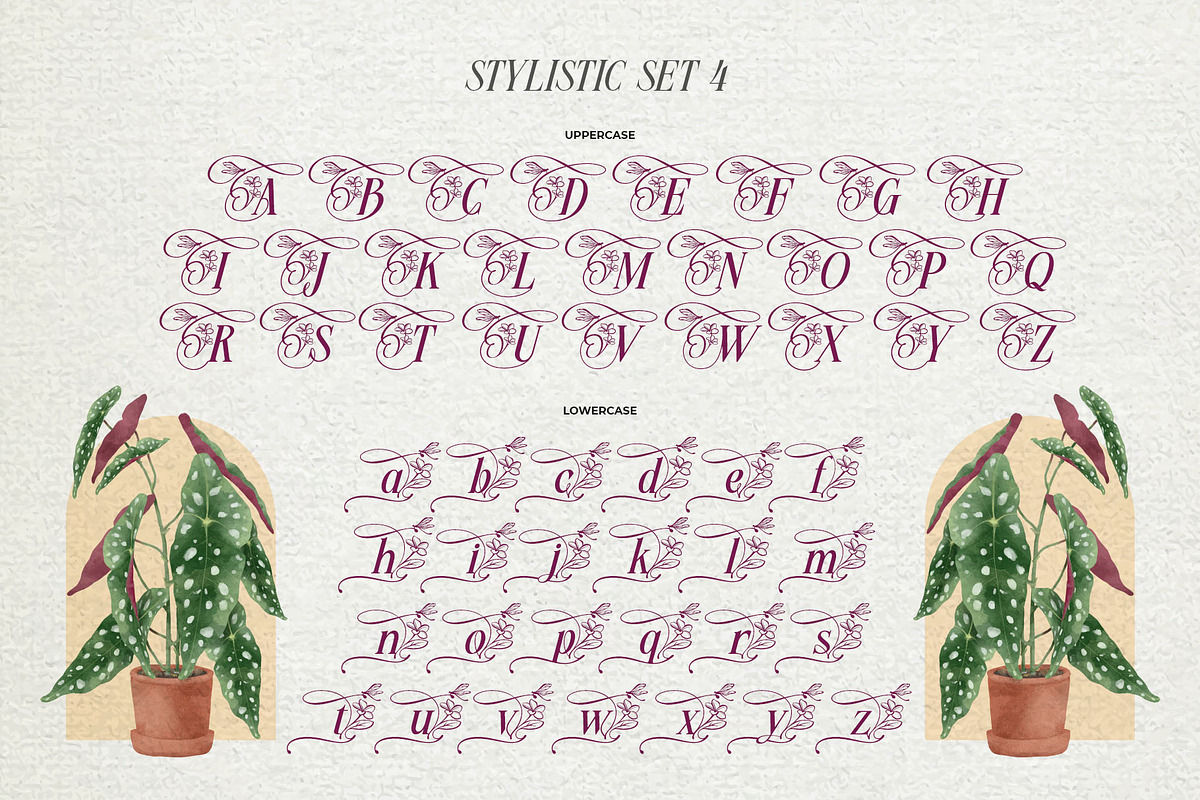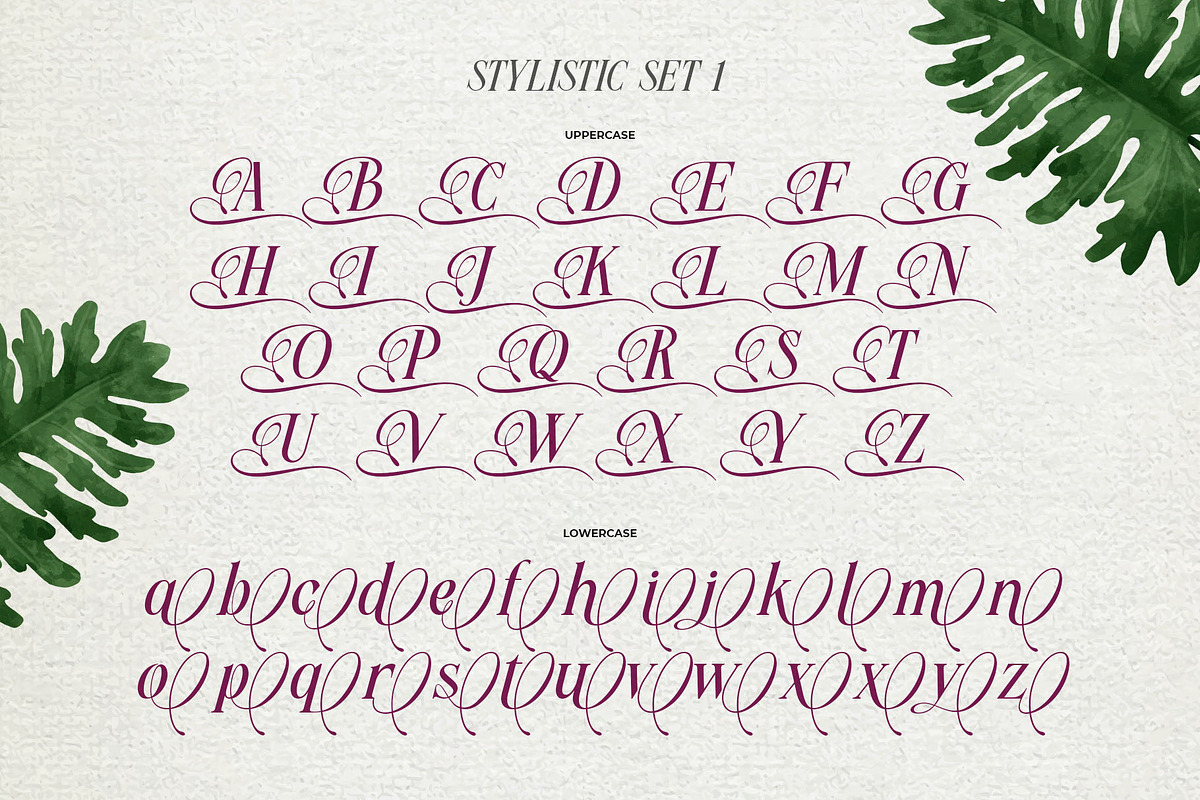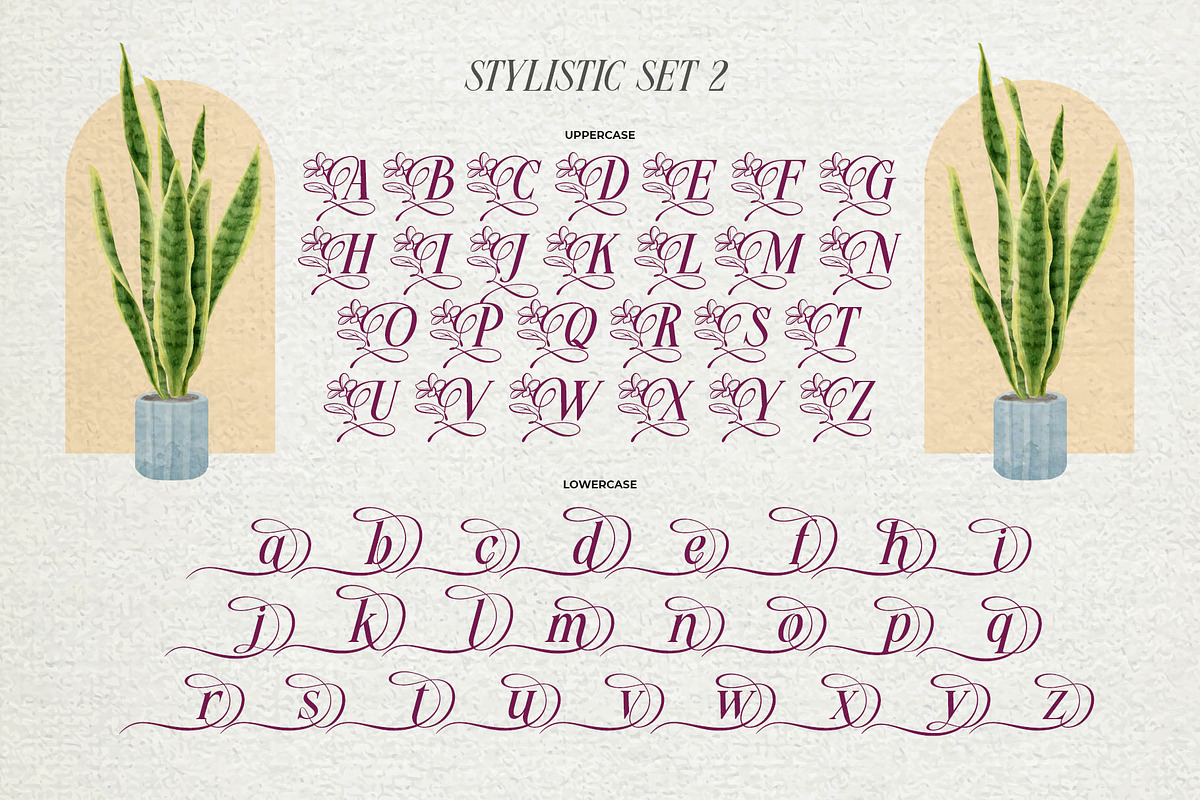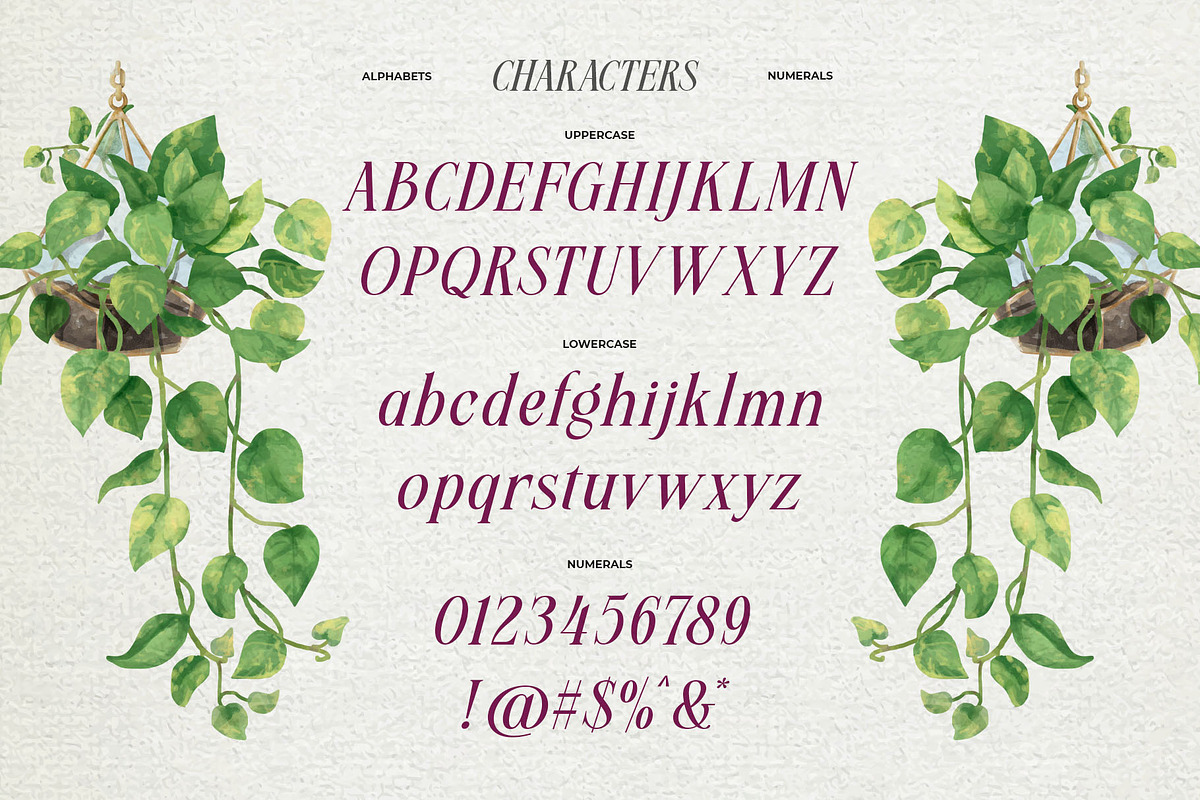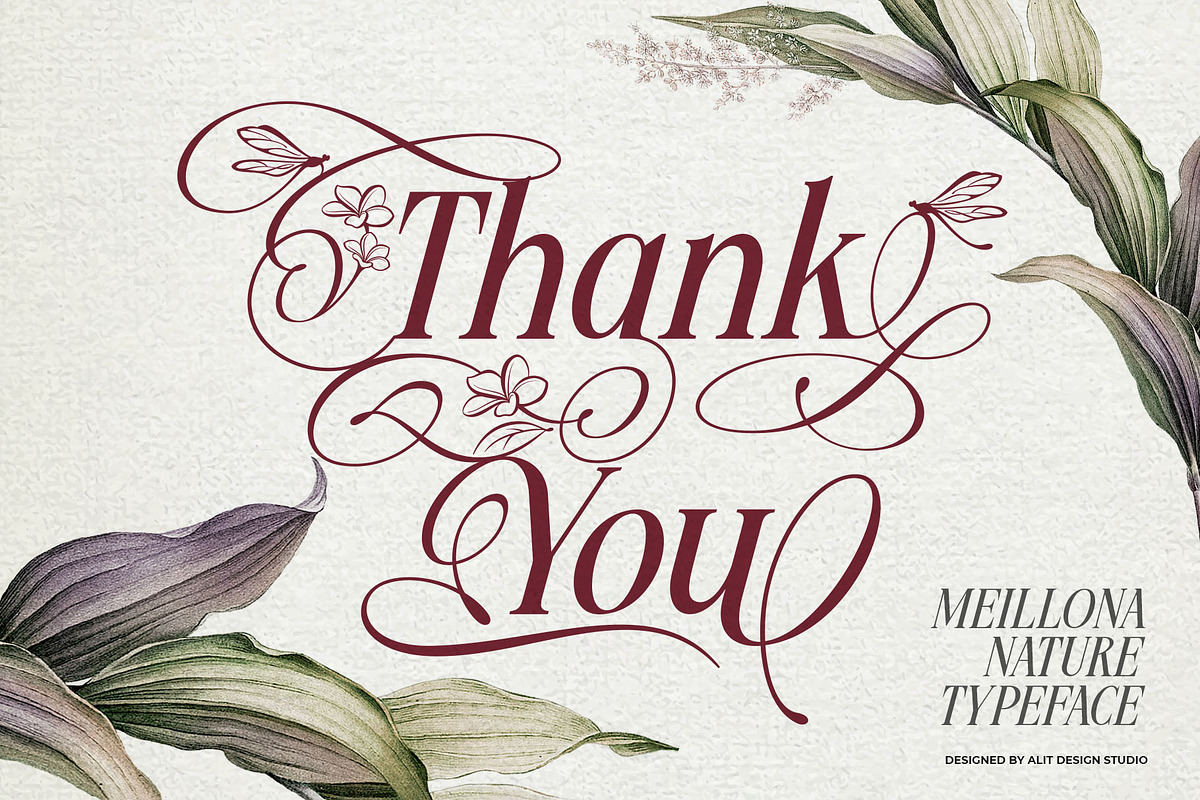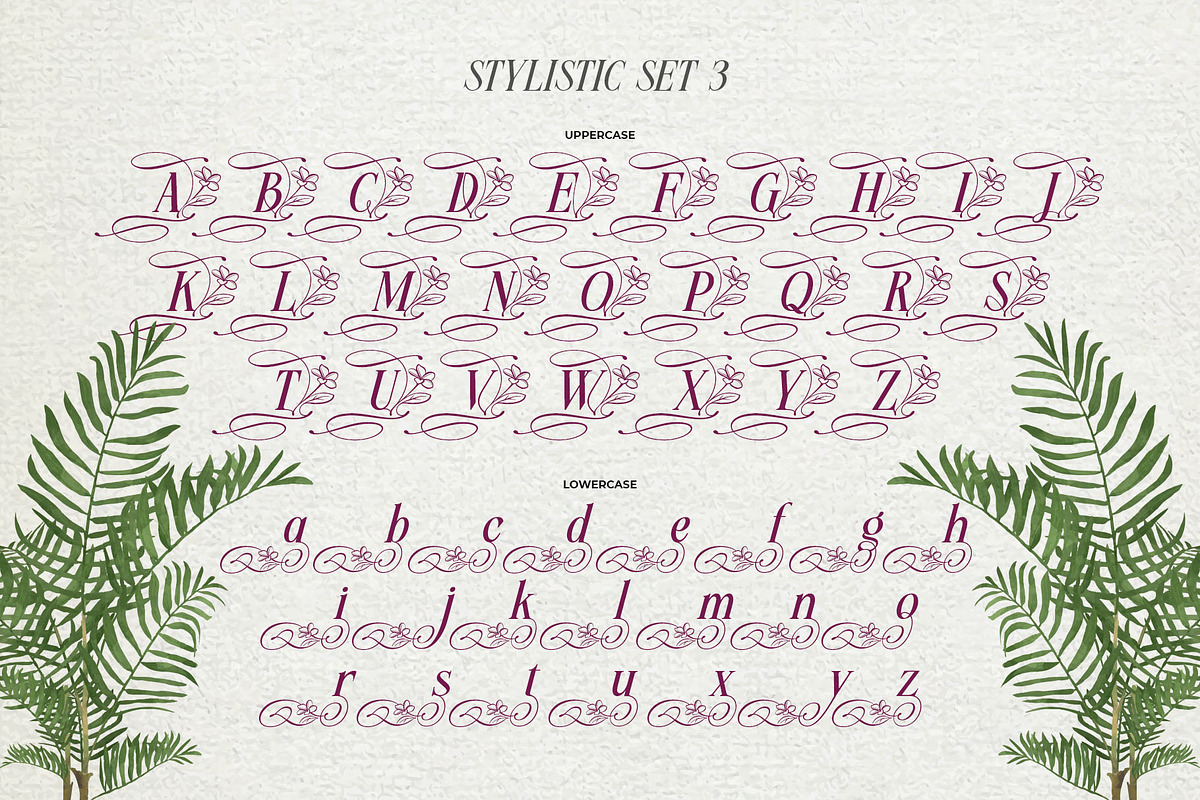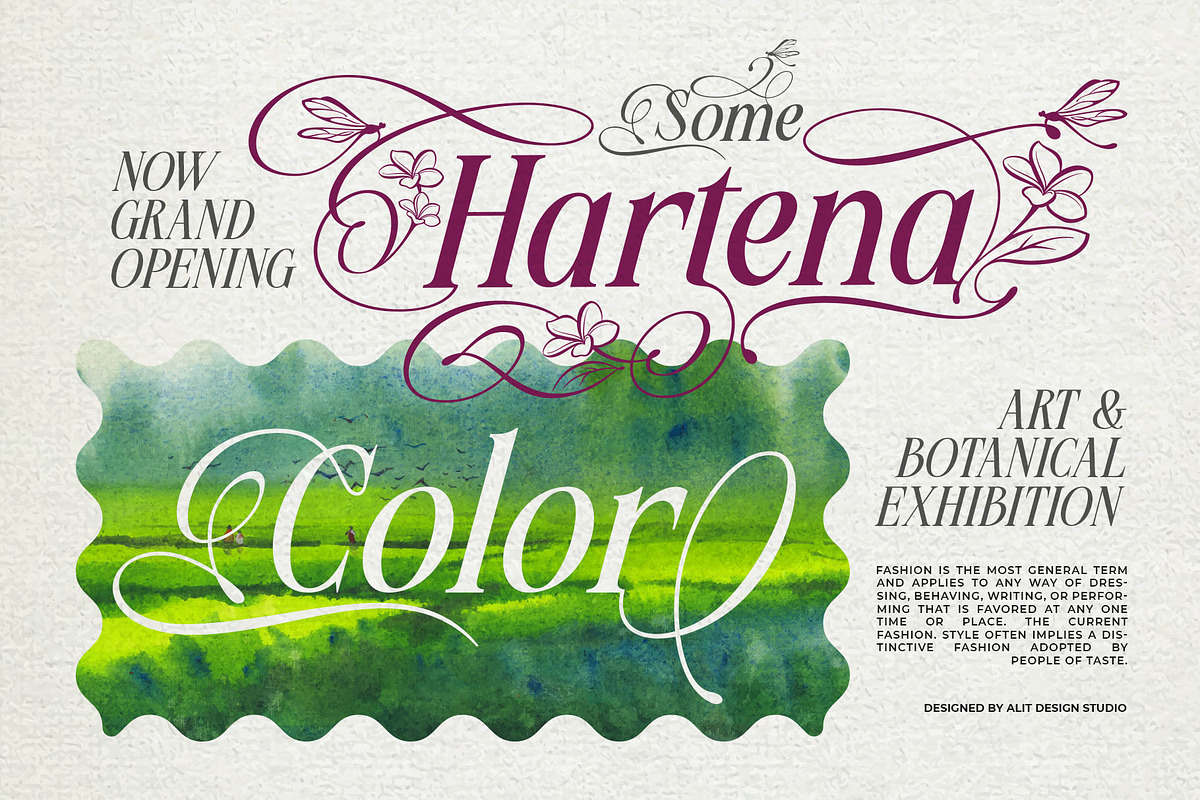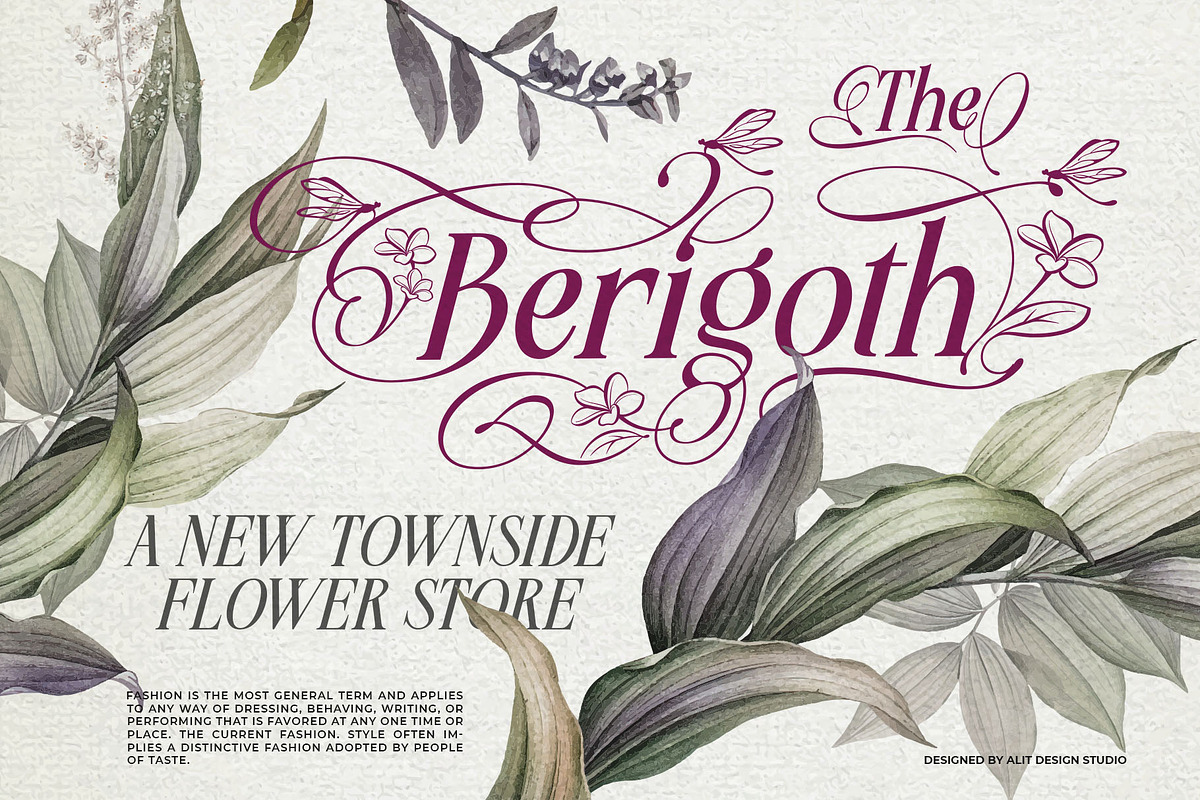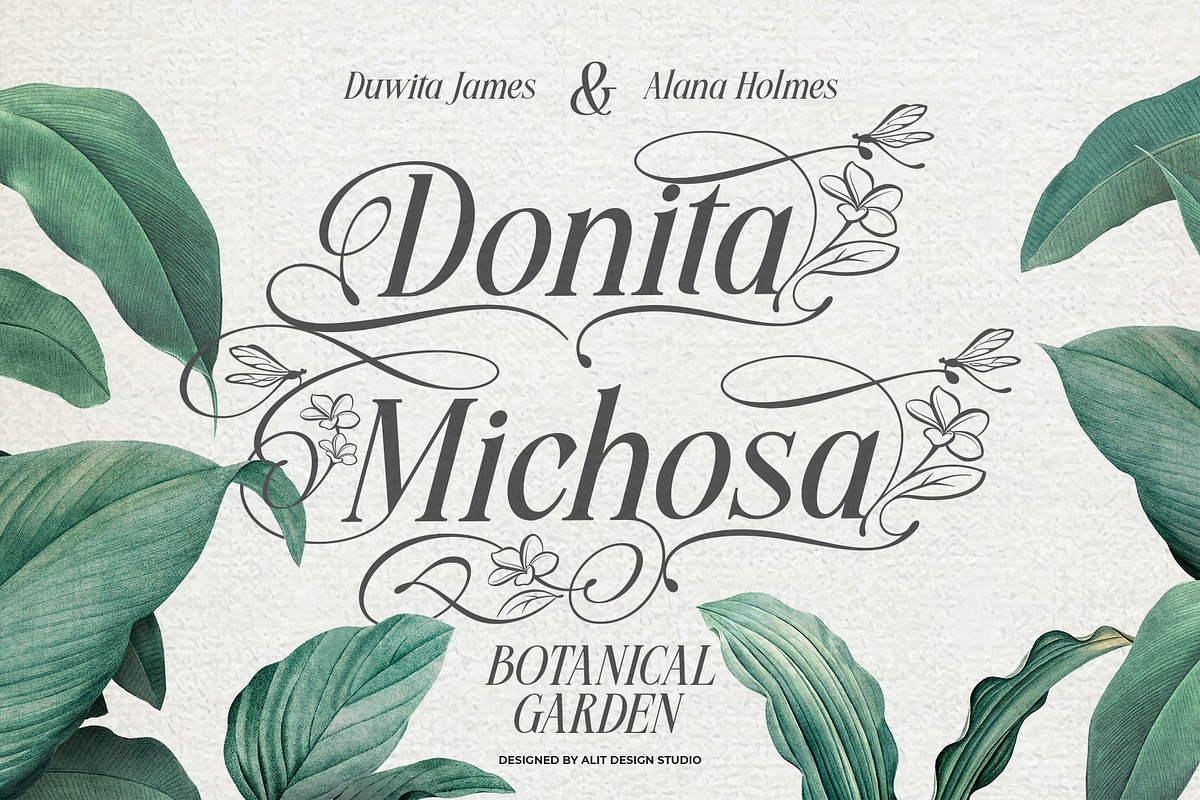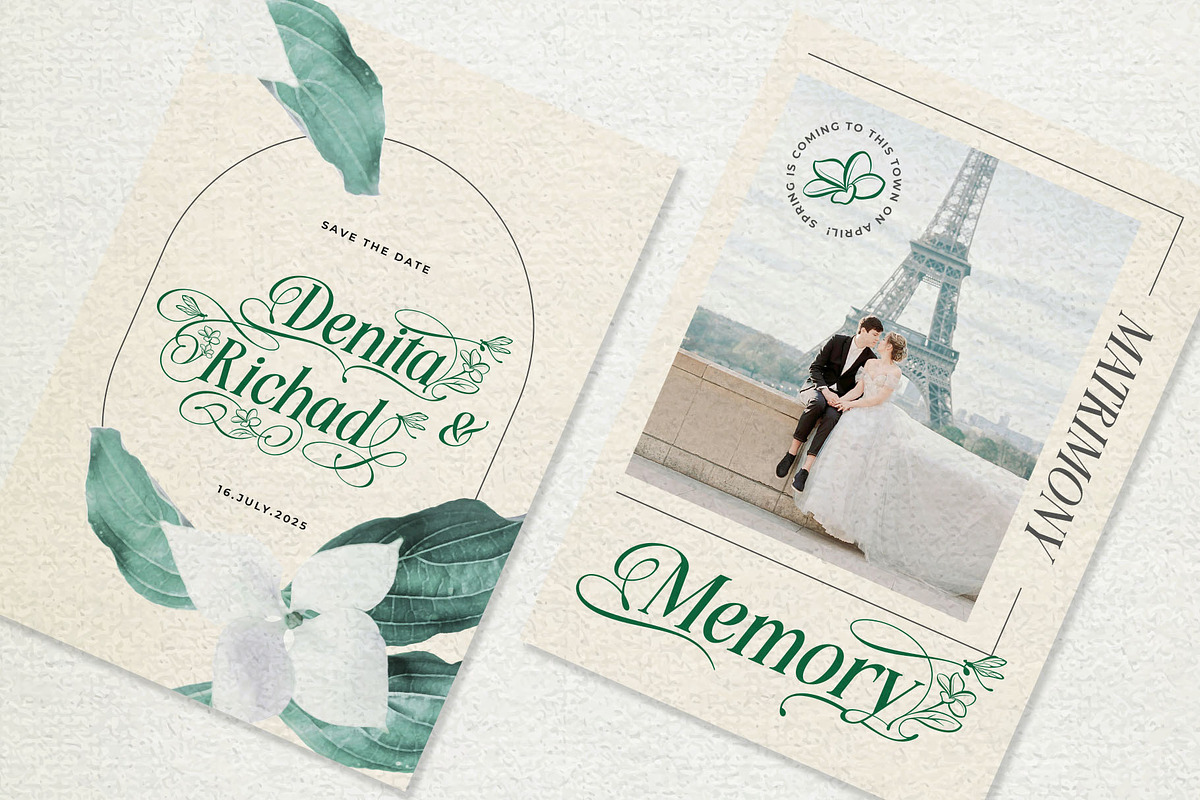
Meillona Typeface
Meillona - Elegant Nature Typeface
Introducing Meillona, an elegant and romantic slanted serif typeface inspired by the delicate beauty of nature.
Meillona is crafted with a sense of sophistication and organic charm. Its graceful, flowing letterforms and classic serif structure make it a timeless choice, while its unique nature-inspired elements set it apart. This typeface is designed to bring a touch of natural elegance and romance to your creative projects.
What makes Meillona truly special is its rich set of features, including beautifully illustrated swashes that incorporate flowers, leaves, and whimsical dragonflies. These decorative elements can be used to create stunning, bespoke typography that feels both luxurious and intimately connected to the natural world.
- Elegant Slanted Serif: A classic and readable style with a romantic, flowing feel.
- Rich in Nature Glyphs: Includes a vast library of over 757 glyphs, featuring stunning nature-themed alternates.
- Multiple Stylistic Sets:
- Stylistic Set 1: Offers clean, sweeping swashes for a touch of classic elegance.
- Stylistic Set 2: Integrates delicate leaves and floral buds into the letterforms.
- Stylistic Set 3: Features more elaborate floral swashes, allowing your text to blossom on the page.
- Full Character Set: Includes uppercase letters, lowercase letters, numerals, punctuation, and symbols.
- Versatile & Multilingual: Perfect for a wide range of applications and supports multiple languages.
Ideal For:
Meillona is the perfect choice for projects that require a blend of elegance and organic beauty. It excels in:
- Branding & Logos: Create memorable logos for florists, photographers, lifestyle brands, and eco-conscious businesses.
- Wedding Invitations: Design enchanting and romantic stationery suites.
- Editorial Design: Add a sophisticated touch to magazine layouts, book covers, and quotes.
- Packaging: Design beautiful packaging for beauty, cosmetic, or artisanal products.
- Social Media: Craft eye-catching and elegant posts for Instagram, Pinterest, and blogs.
With Meillona, you're not just getting a font; you're getting a complete toolkit to infuse your designs with the timeless elegance of nature.
- Extensive Stylistic Alternates & Ligatures